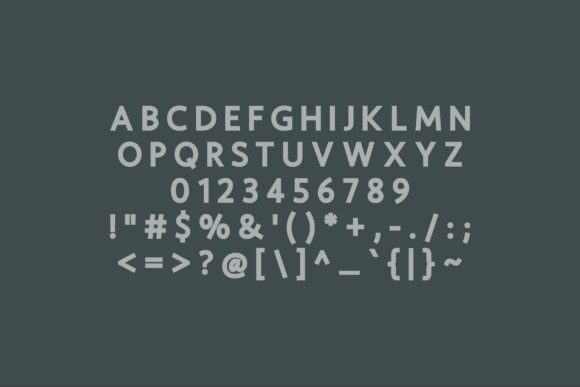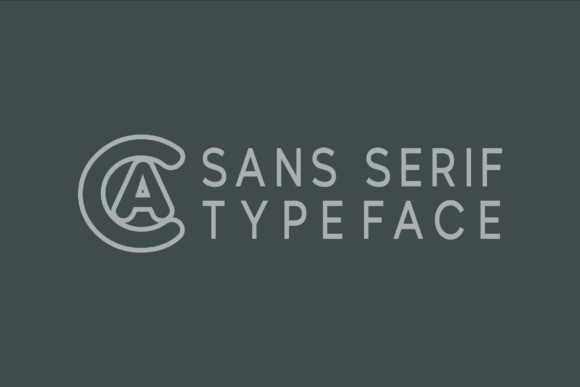
Frostline Font
Frostline Font is a crisp and contemporary sans-serif font designed to deliver clarity, structure, and subtle sophistication.Inspired by cool, wintry atmospheres, this typeface features clean lines, even stroke weights, and a strong geometric base—making it ideal for digital interfaces, branding, editorial layouts, and professional print design. Frostline comes in uppercase with numerals and essential punctuation, offering versatility for both display and body text.
Its slightly condensed proportions allow for space efficiency, while maintaining excellent legibility at various sizes.
Perfect for tech-forward branding, modern lifestyle projects, and minimalist compositions, Frostline gives your designs a refined edge with a cool, confident voice. Whether you’re crafting a logo or building a clean website layout, Frostline brings a balanced modernism to every project.